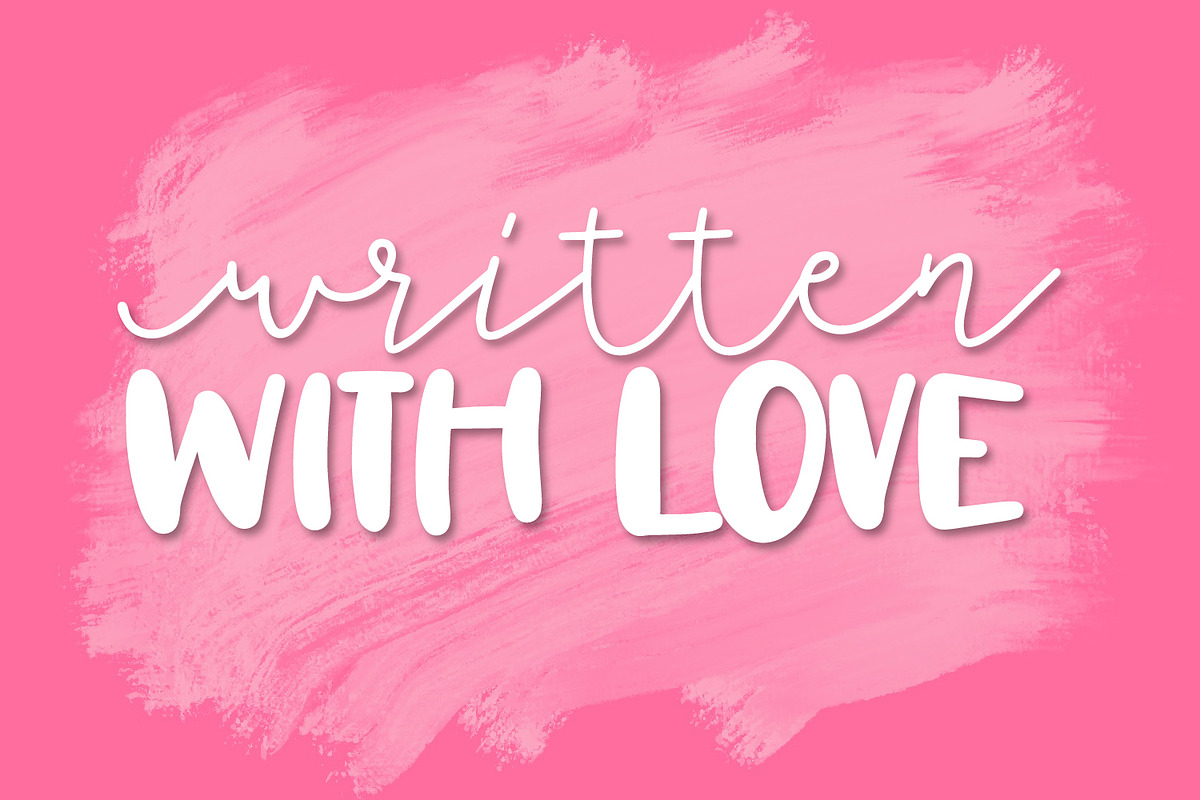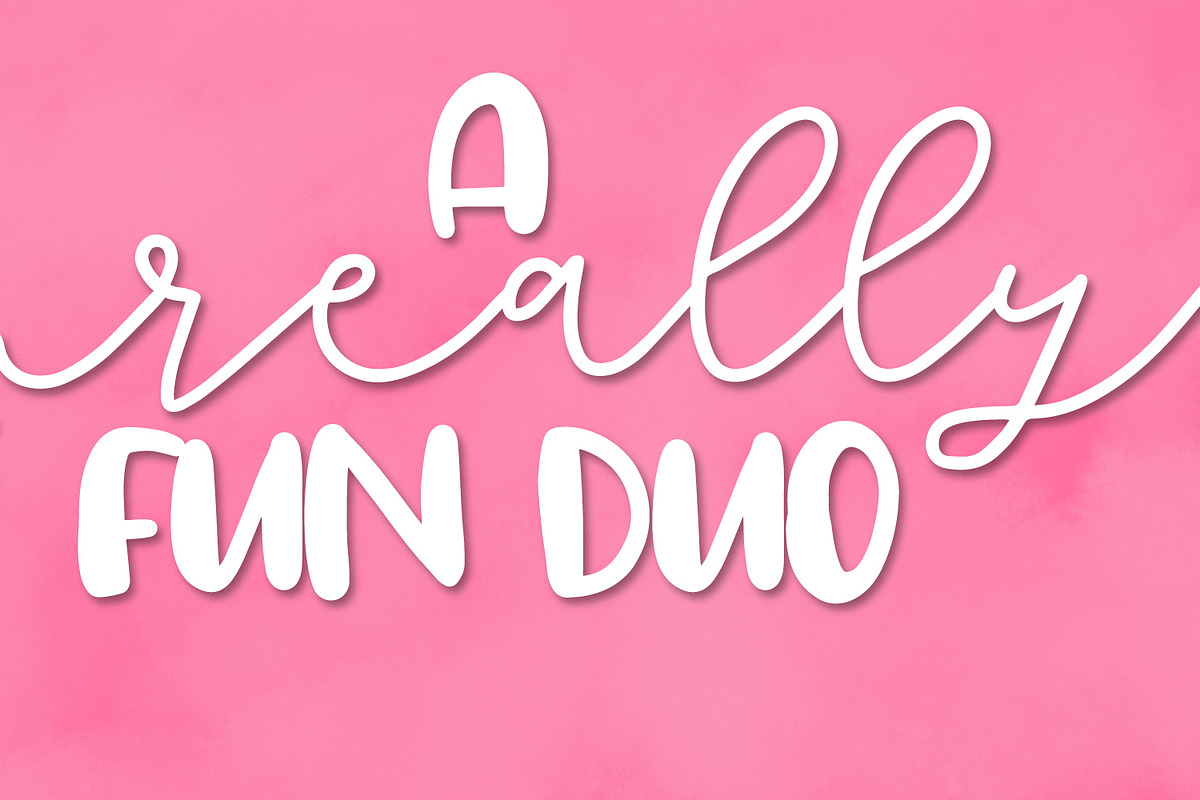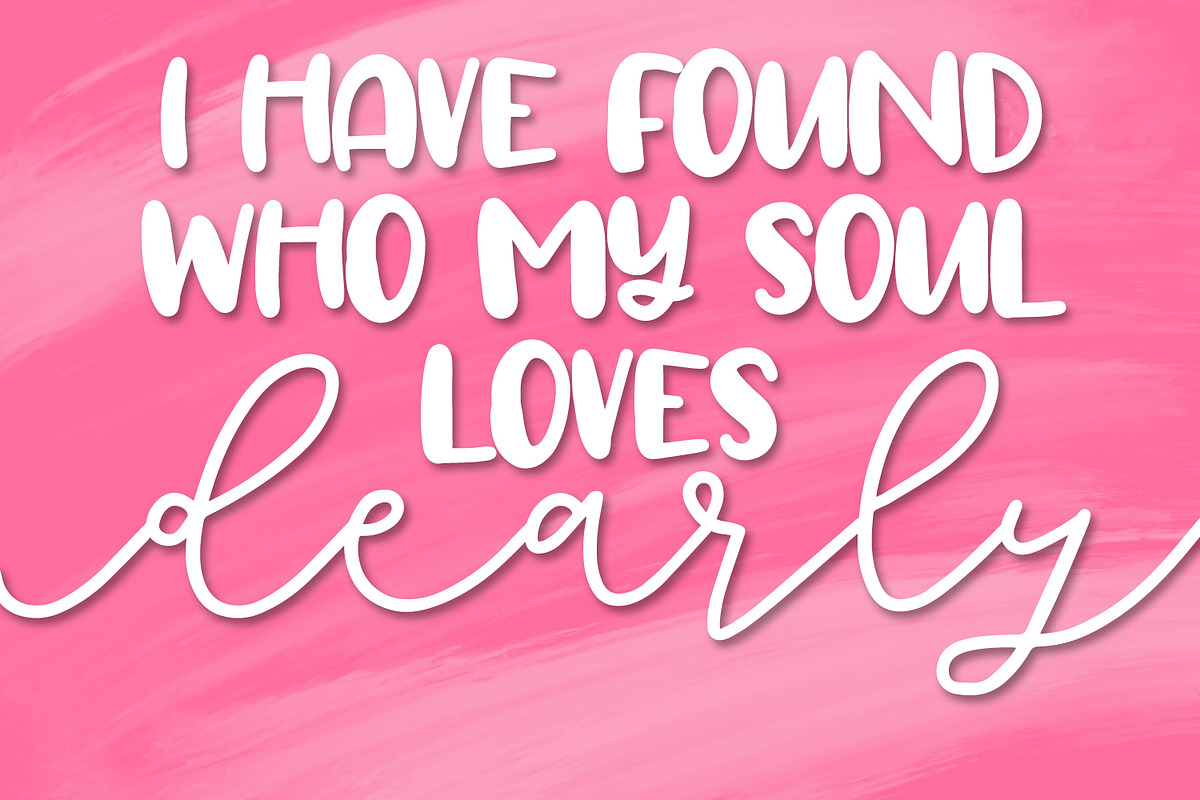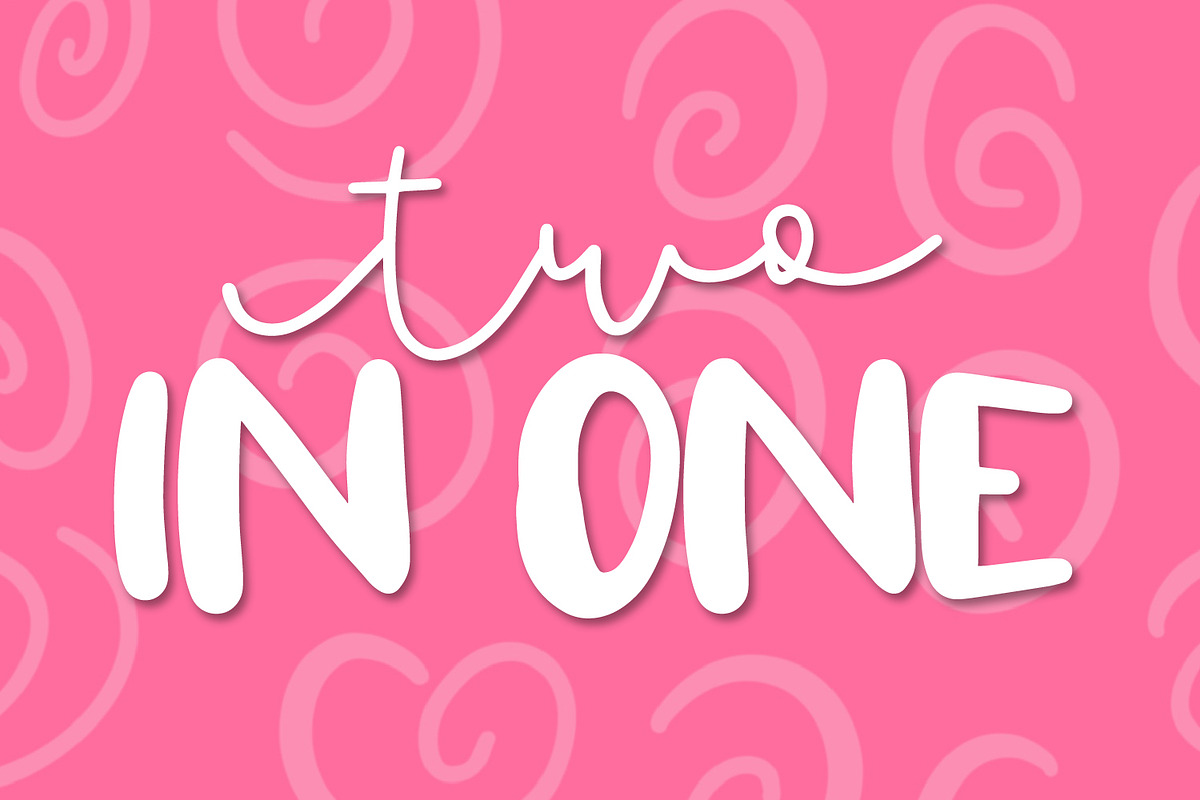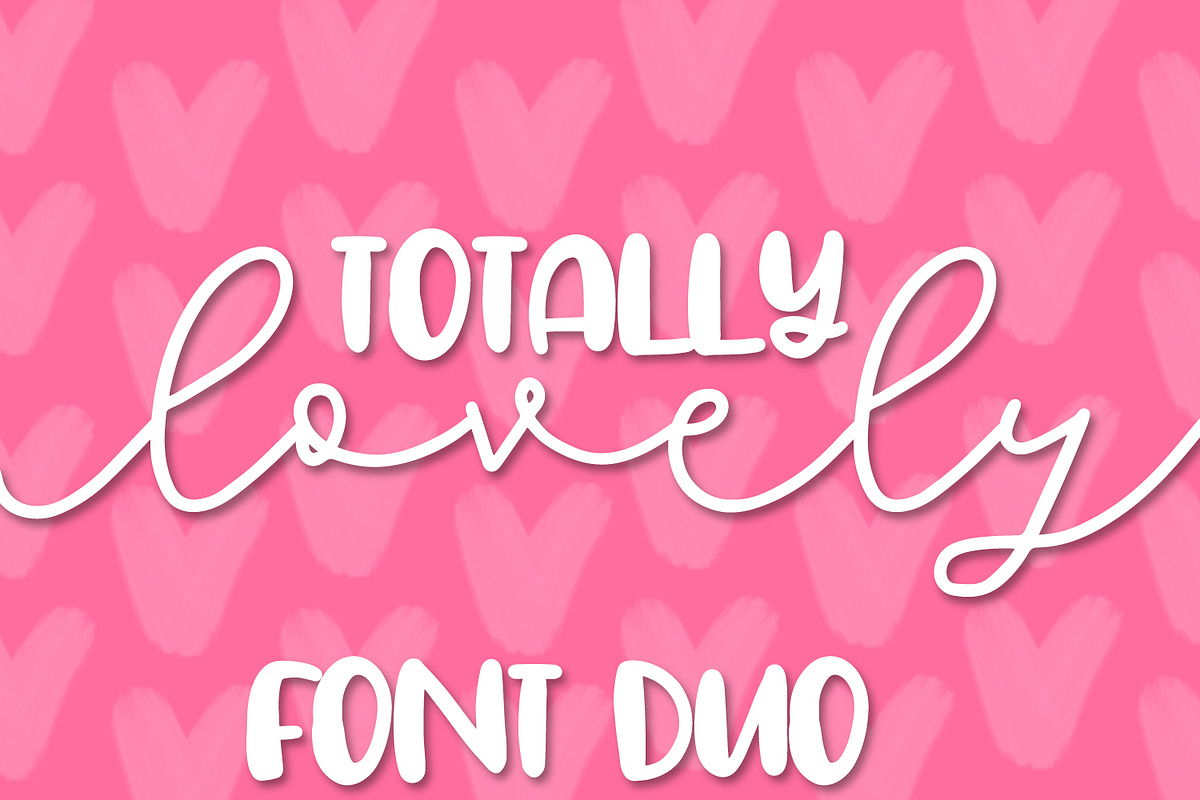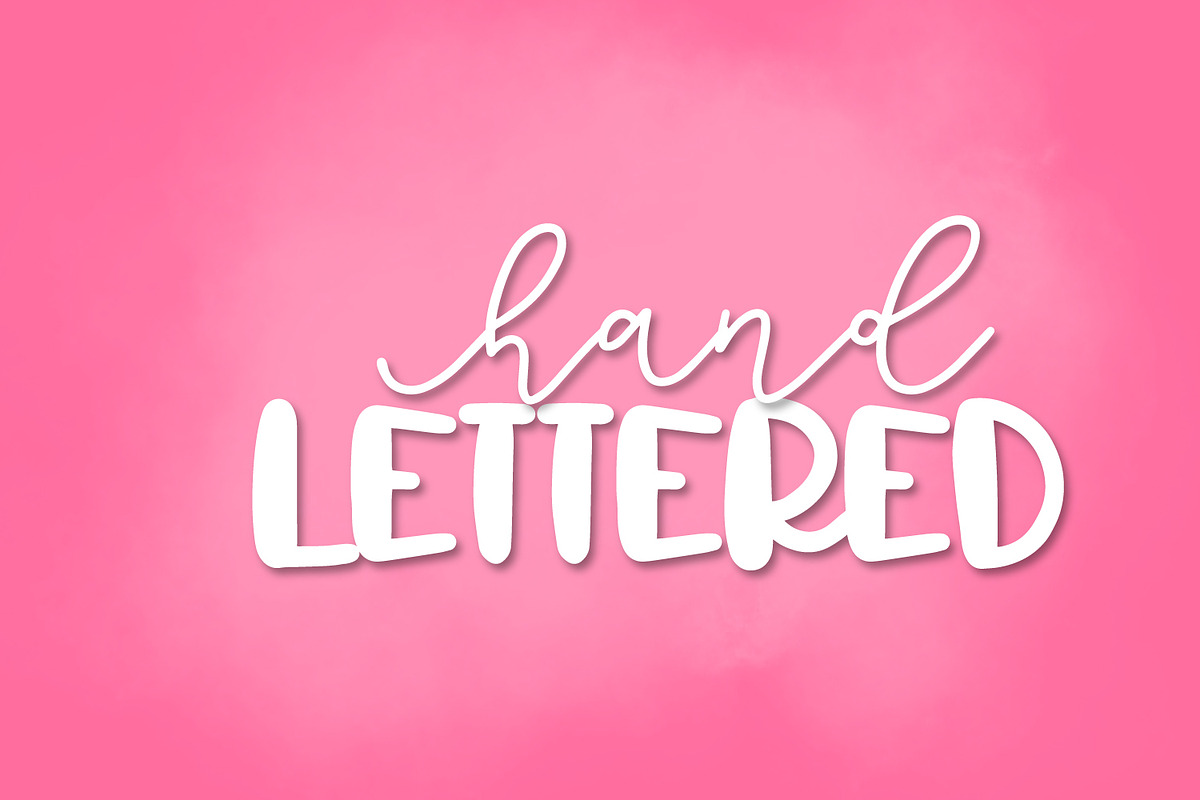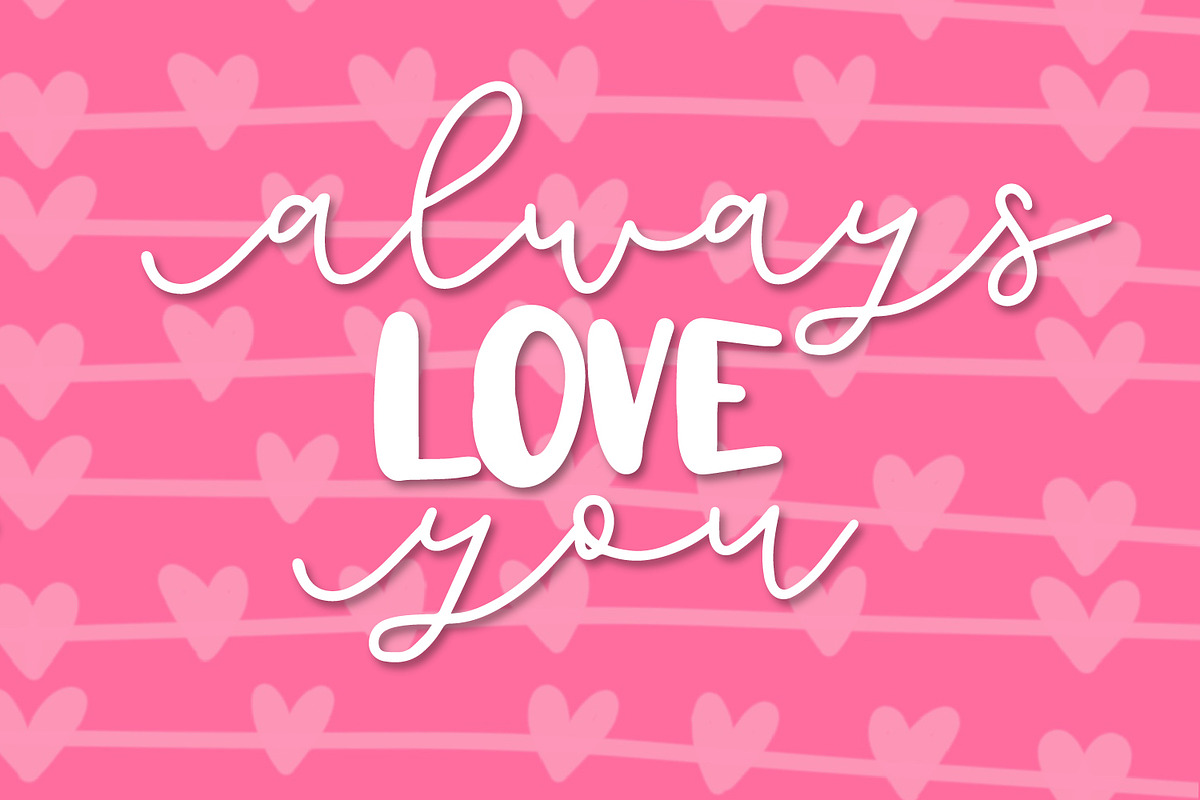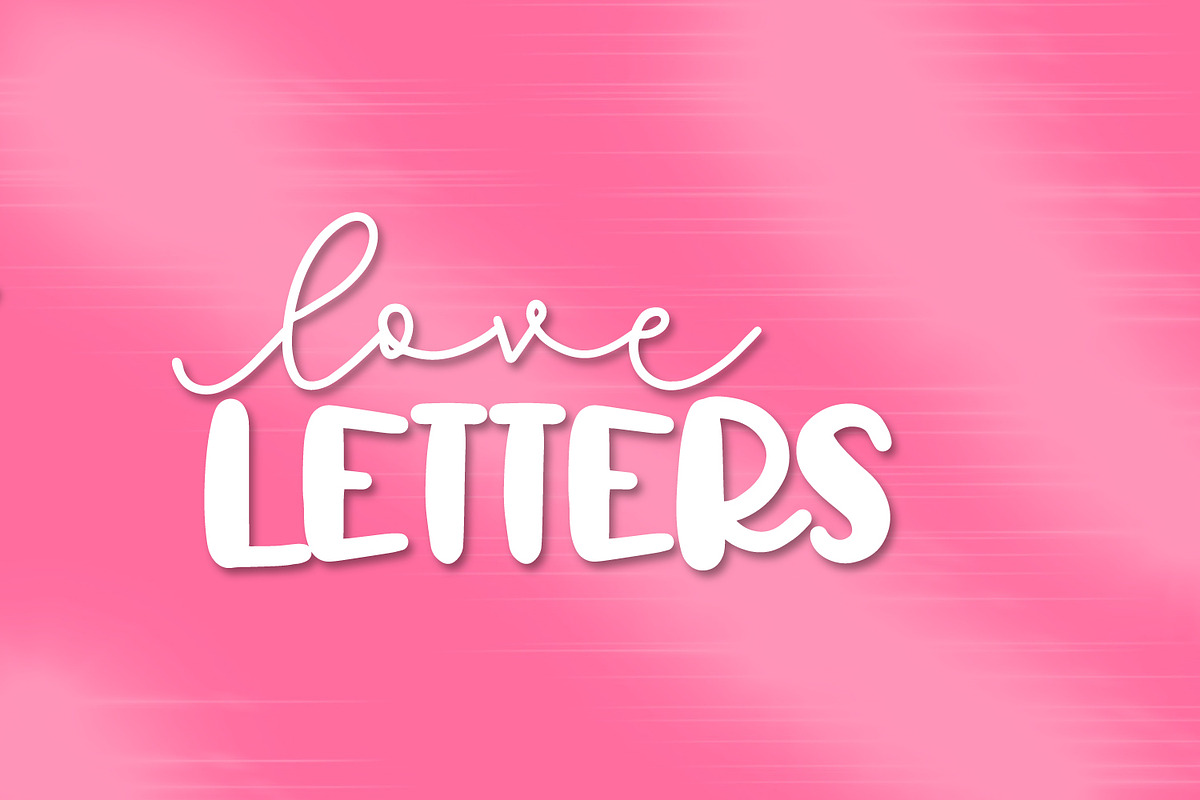
Totally Lovely - A Font Pair
Totally Lovely A Font Pair by CraftyLittleNodes is a font selected for branding, posters, packaging, typography.
Totally Lovely - A Font Pair by CraftyLittleNodes fits naturally into Branding, posters, packaging, typography.